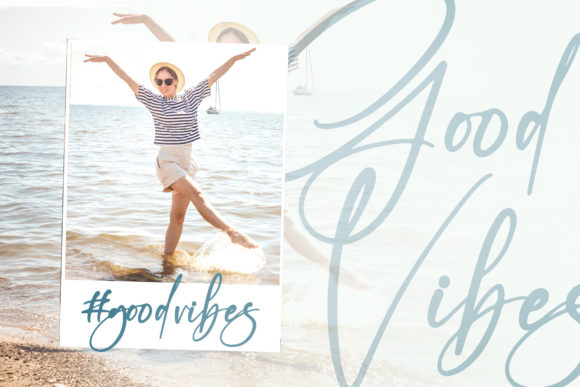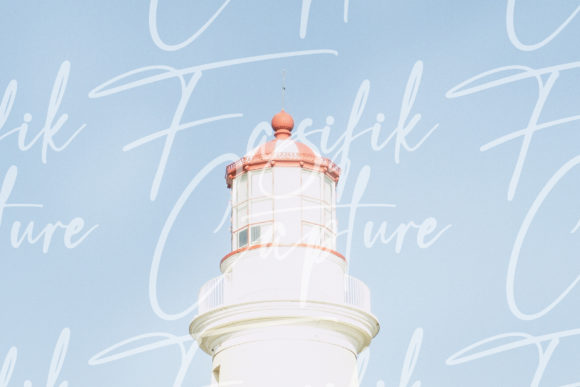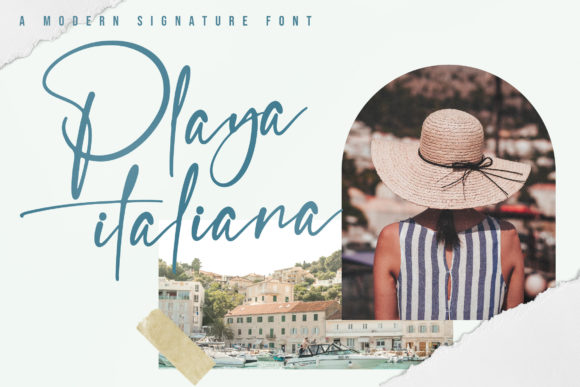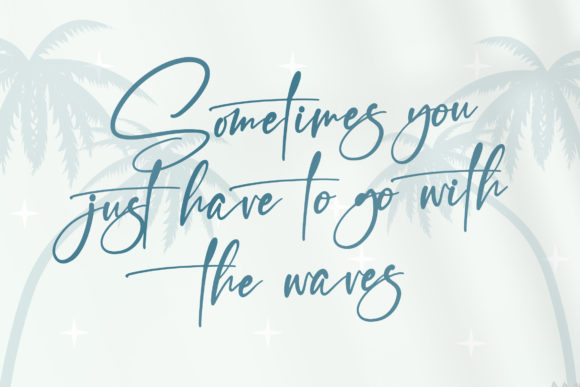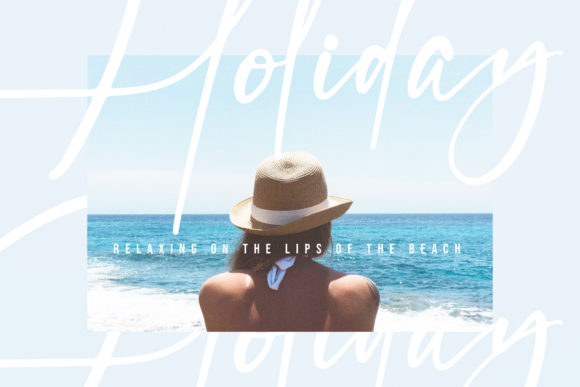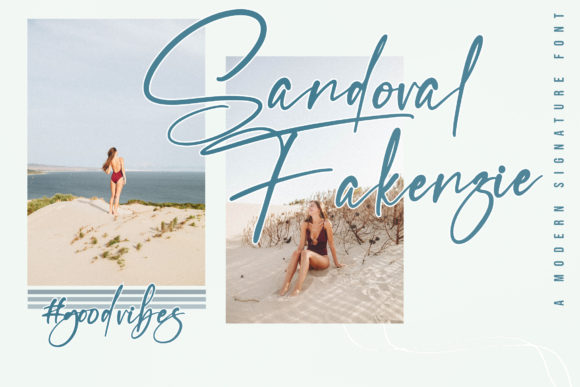
Fasifik Capture Font: Adding a Touch of Whimsy to Your Designs
In the world of typography, fonts play a crucial role in conveying the tone and personality of a design. For designers and crafters looking to add a dash of playfulness and charm to their creations, Fasifik Capture font is an excellent choice. This relaxed script font features characters that seem to dance along the baseline, making it perfect for projects that require a touch of whimsy.
The Charm of Fasifik Capture Font
Fasifik Capture is a unique script font that boasts charming, playful characters. Its relaxed and casual feel makes it ideal for designs that require a friendly and approachable tone. The font’s distinctive feature is its ability to make characters appear as if they are dancing along the baseline, adding a sense of movement and energy to any design.
Whether you’re working on a branding project, creating social media graphics, or designing invitations, Fasifik Capture font can help make your ideas stand out. Its playful and charming nature makes it perfect for:
- Branding and packaging designs
- Invitations and event materials
Why Choose Fasifik Capture Font?
There are several reasons why Fasifik Capture font should be your go-to choice for creative projects:
- Unique and eye-catching: Fasifik Capture font is unlike any other script font out there. Its distinctive characters and dancing baseline make it a standout in any design.
- Playful and charming: This font exudes a sense of playfulness and charm, making it perfect for designs that require a friendly and approachable tone.
- Versatile: Fasifik Capture font can be used in a variety of design projects, from branding and advertising to social media graphics and invitations.
- Easy to read: Despite its playful nature, Fasifik Capture font is easy to read, making it perfect for designs that require a clear and concise message.
Tips for Using Fasifik Capture Font
To get the most out of Fasifik Capture font, here are some tips to keep in mind:
- Pair with contrasting fonts: Pair Fasifik Capture font with a contrasting font to create visual interest and hierarchy in your design.
- Use in moderation: While Fasifik Capture font is playful and charming, it’s essential to use it in moderation to avoid overwhelming the design.
- Experiment with colors: Fasifik Capture font looks great in a variety of colors, so don’t be afraid to experiment and find the perfect hue for your design.
Fasifik Capture font is a unique and charming script font that can add a touch of whimsy to any design. Its playful and playful characters make it perfect for creative projects that require a friendly and approachable tone. With its versatility, ease of use, and eye-catching design, Fasifik Capture font is an excellent choice for designers and crafters looking to make their ideas stand out.